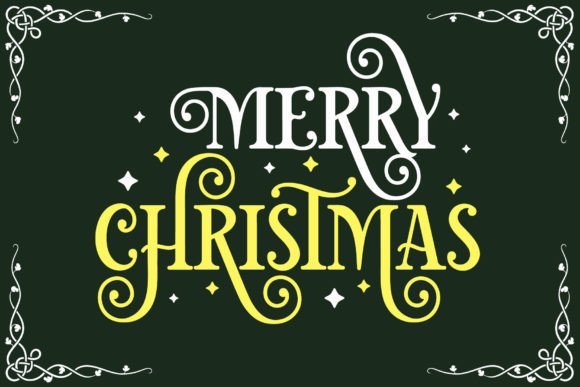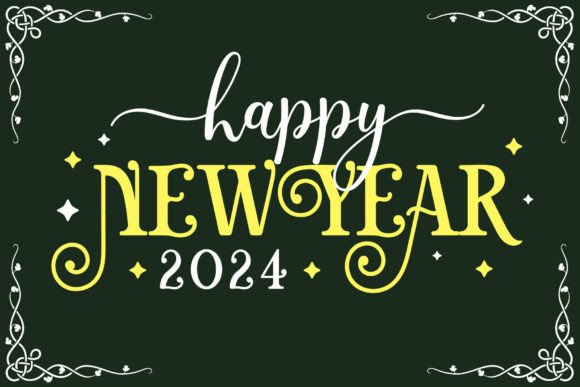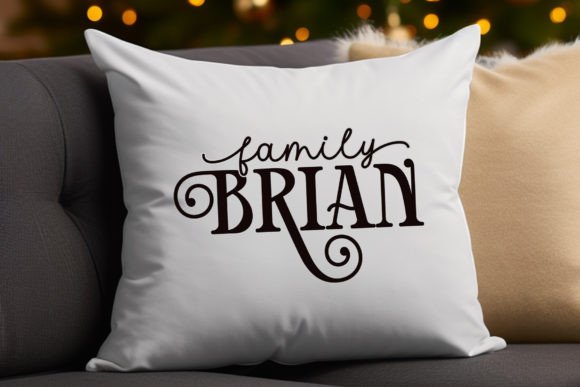
Christmas Dignity Font
Christmas Dignity is modern and fancy serif font. It is elegant, swirl, and beautiful.
Feel the vibes of modern and elegant and make your design standout with this font.
This font is special for Christmas, but can also be used for wide ranges of design, such as wedding, invitation, quotes, t-shirt, stickers, and many more.